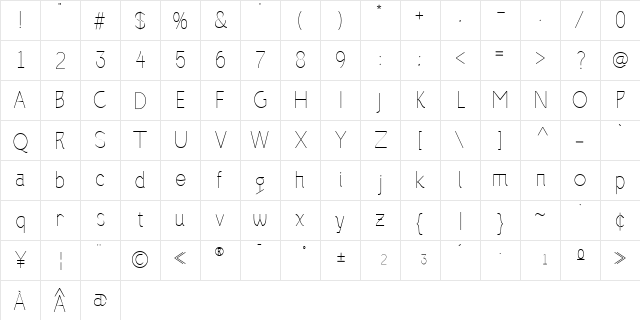
Alazne Light Regular
Design Context for Alazne Light Typeface
Alazne Light is a composed and adaptable typeface that performs quietly and consistently across a wide range of design contexts. The delicate stroke weight brings airiness and refinement to layouts.
Pro Tip: Pair Alazne Light with a font of contrasting weight or personality to build a more expressive typographic hierarchy.